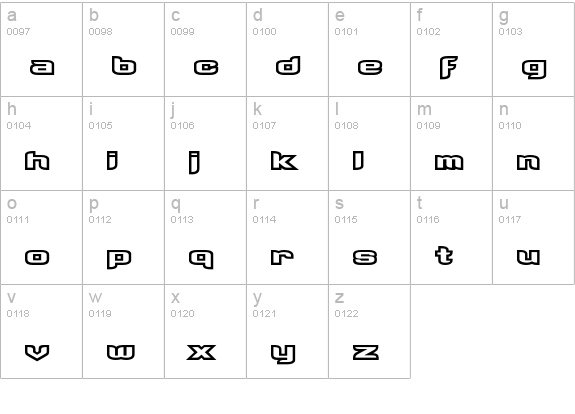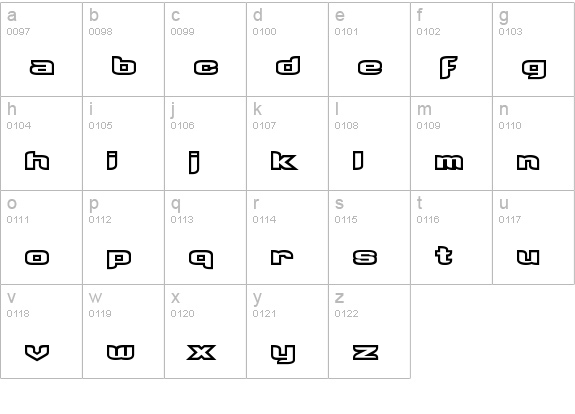
Megahertz-Out Font Details
Introducing Megahertz-Out font, a striking display typeface that is sure to make your designs stand out from the crowd. This futuristic font features sharp edges and a unique geometric design that exudes modernity and innovation. The Megahertz-Out font is perfect for creating eye-catching headlines, posters, logos, and more. And the best part? It's completely free to download at FontsMarket.com! With just a few clicks, you can add this bold and dynamic font to your collection without spending a penny. So why wait? Enhance your projects with the Megahertz-Out font today and let your creativity soar to new heights.